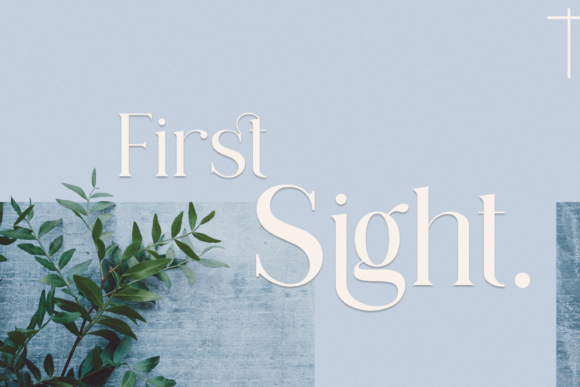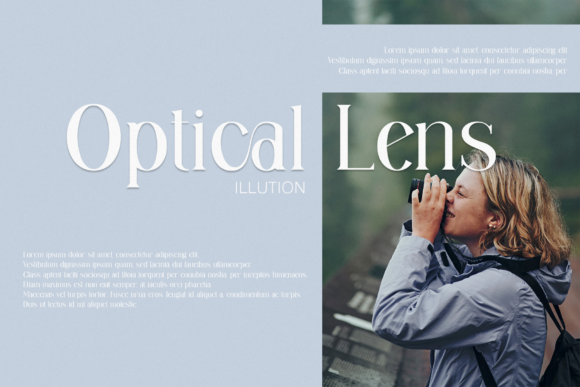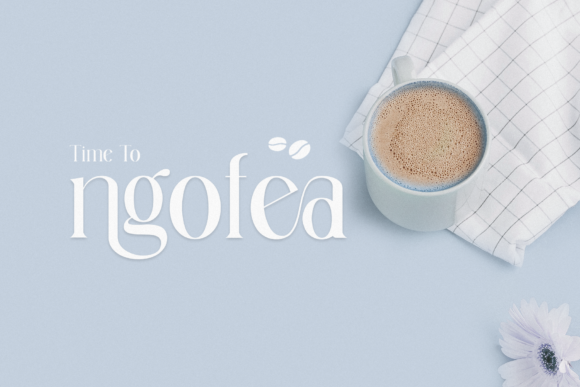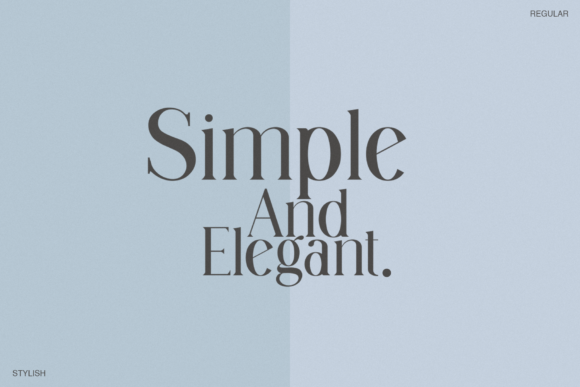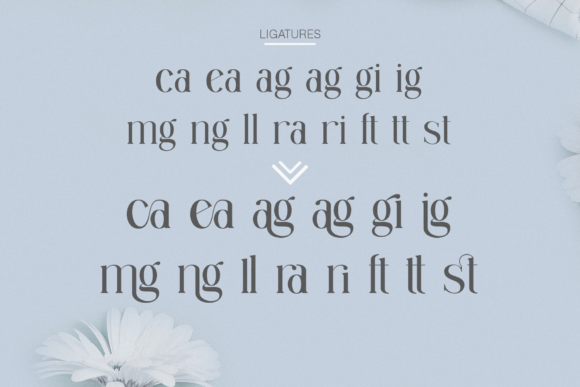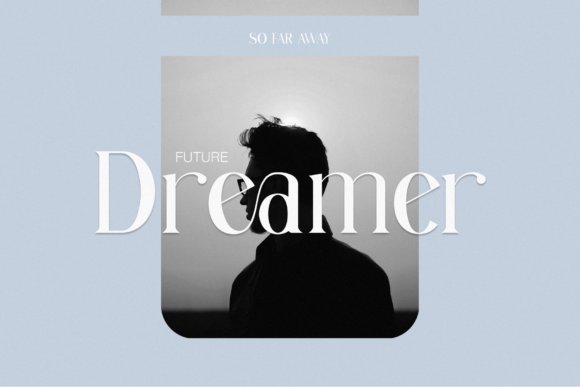
Introducing Granger Font: Elevate Your Designs with Elegance and Assertiveness
In the world of typography, fonts play a crucial role in conveying messages, expressing emotions, and creating visual identities. For designers, crafters, and anyone looking to make a statement with their creations, finding the right font can be a game-changer. This is where Granger Font comes into play – an elegant and assertive serif font that is about to revolutionize the way you approach your designs.
What is Granger Font?
Granger is not just another font; it’s an experience. Described as elegant and assertive, this serif font combines simplicity with a strong visual effect. Its unique characteristics make it stand out in a crowd, ensuring that your creations are not only noticed but also remembered. Whether you’re working on a branding project, crafting a compelling story through your words, or simply looking to enhance your digital or print materials, Granger Font is the perfect companion.
The Power of Simplicity and Elegance
One of the most significant advantages of Granger Font is its simplicity. In an era where complexity often overshadows elegance, Granger proves that sometimes, less is more. Its clean lines and classic serif structure evoke a sense of sophistication and timelessness, making it versatile enough for a wide range of applications – from luxury branding to editorial design.
Despite its simple appearance, Granger Font packs a strong visual punch. Its assertiveness comes from the confident way it presents itself on any medium, demanding attention and respect. This balance of elegance and assertiveness is what sets Granger apart, making it an invaluable asset for designers looking to create impactful work.
Applications of Granger Font
The versatility of Granger Font is one of its most appealing qualities. Here are just a few examples of how you can use this incredible font:
- Branding and Logo Design: Create a lasting impression with a font that exudes professionalism and elegance.
- Editorial Design: Enhance your magazines, newspapers, and digital publications with a sophisticated touch.
- Web Design: Elevate your website’s typography, making it more engaging and user-friendly.
- Marketing Materials: From brochures to billboards, Granger Font ensures your message is delivered with style and impact.
- Packaging Design: Stand out on the shelves with elegant and assertive typography that captures the essence of your product.
Why Choose Granger Font?
With so many fonts available, why should Granger be your go-to choice? The answer lies in its unique blend of elegance, assertiveness, and versatility. Here are a few compelling reasons:
- Unique Appeal: Granger Font offers a distinctive look that can set your designs apart from the competition.
- High Readability: Its clear and classic structure ensures that your message is conveyed effectively, whether in print or digital formats.
- Adaptability: Granger Font can be used across various platforms and design applications, making it a valuable addition to your typographic arsenal.
Granger Font is more than just a typeface; it’s a design statement. Its elegant and assertive presence can transform your creations, making them more appealing and impactful. Whether you’re a professional designer or a crafter looking to elevate your projects, Granger Font is an excellent choice. Embrace the power of simplicity and elegance in your designs, and watch as your work takes on a new level of sophistication and appeal.
In a world where design is king, Granger Font is your ace. Equip yourself with this versatile, elegant, and assertive serif font, and discover the difference it can make in your creations.